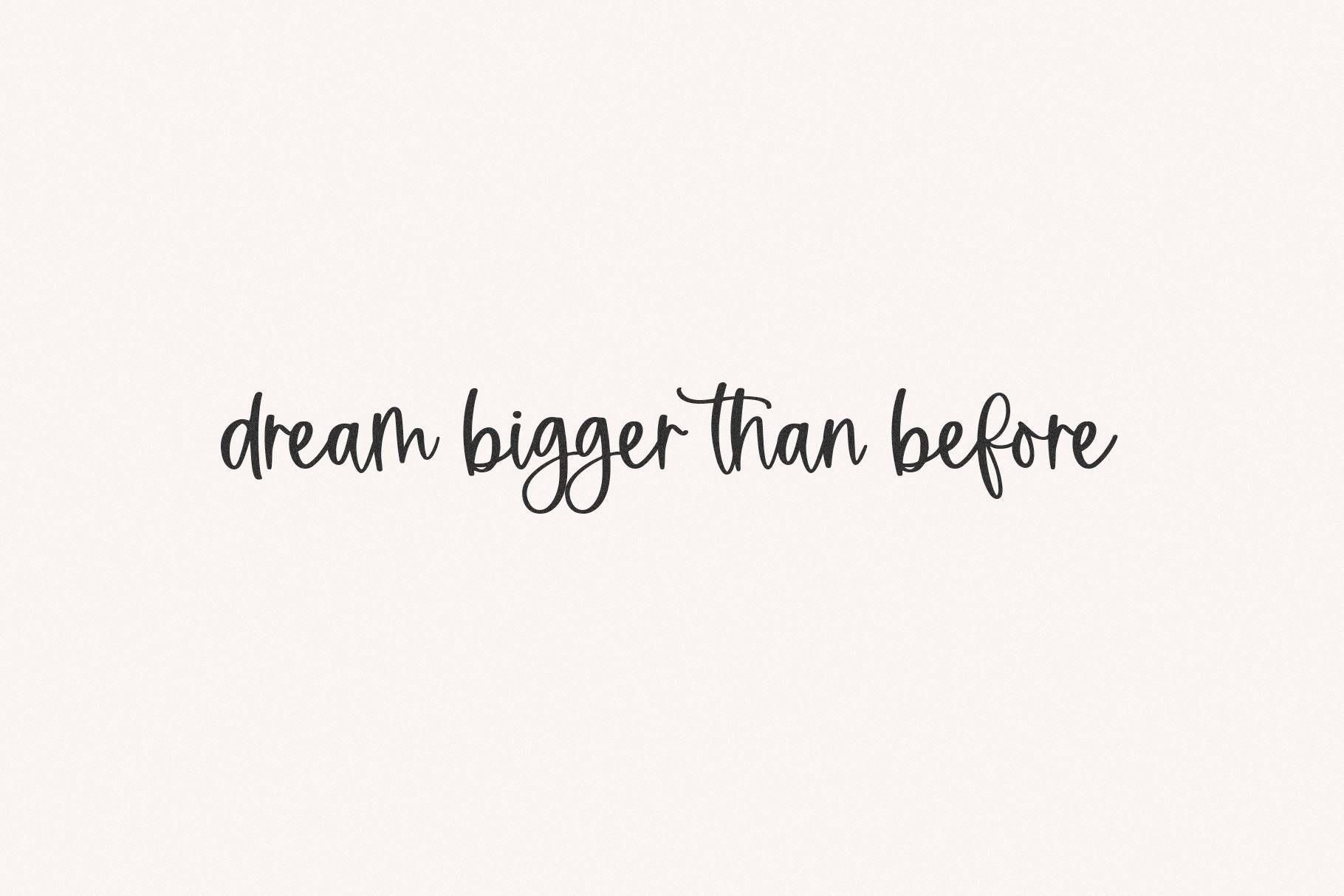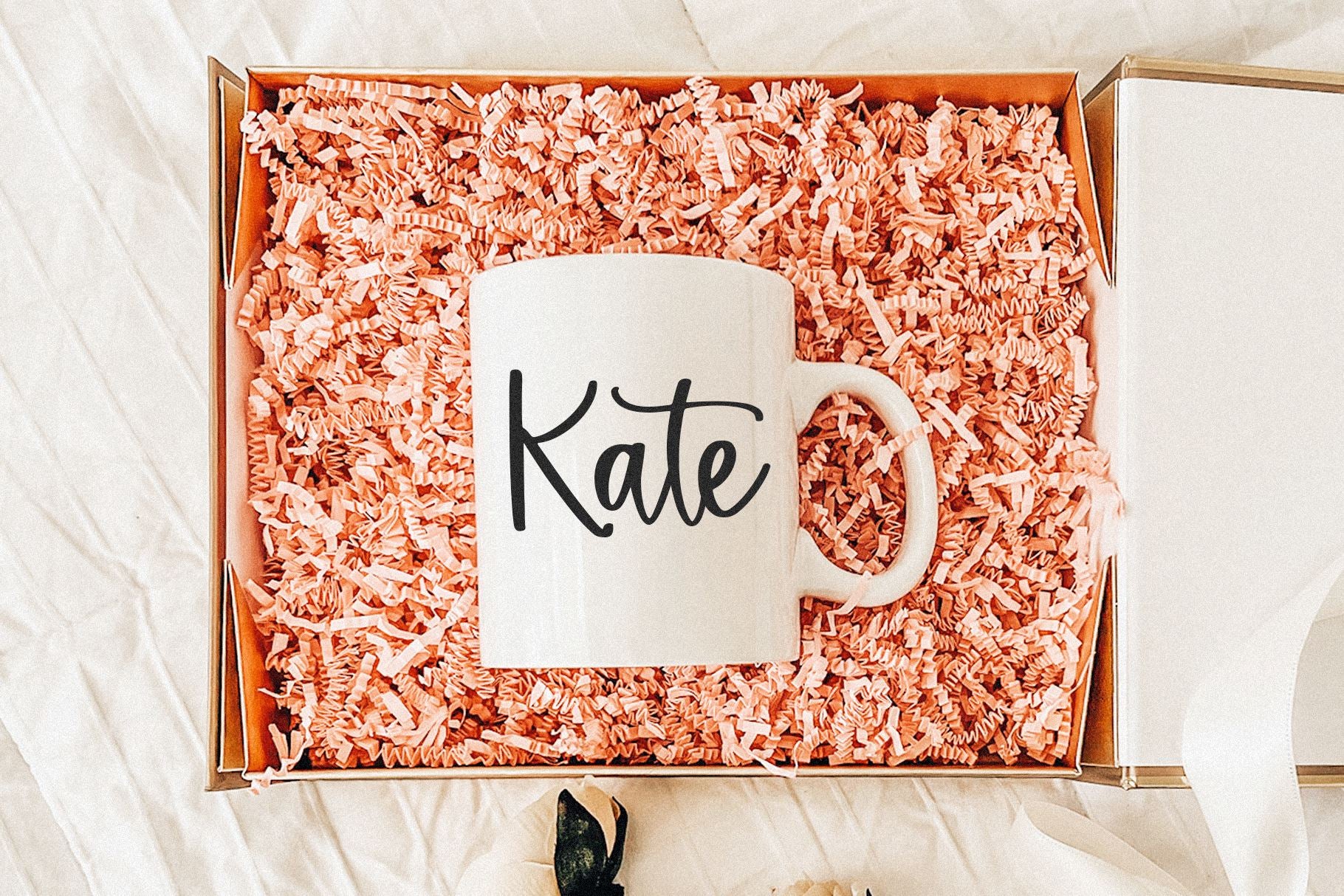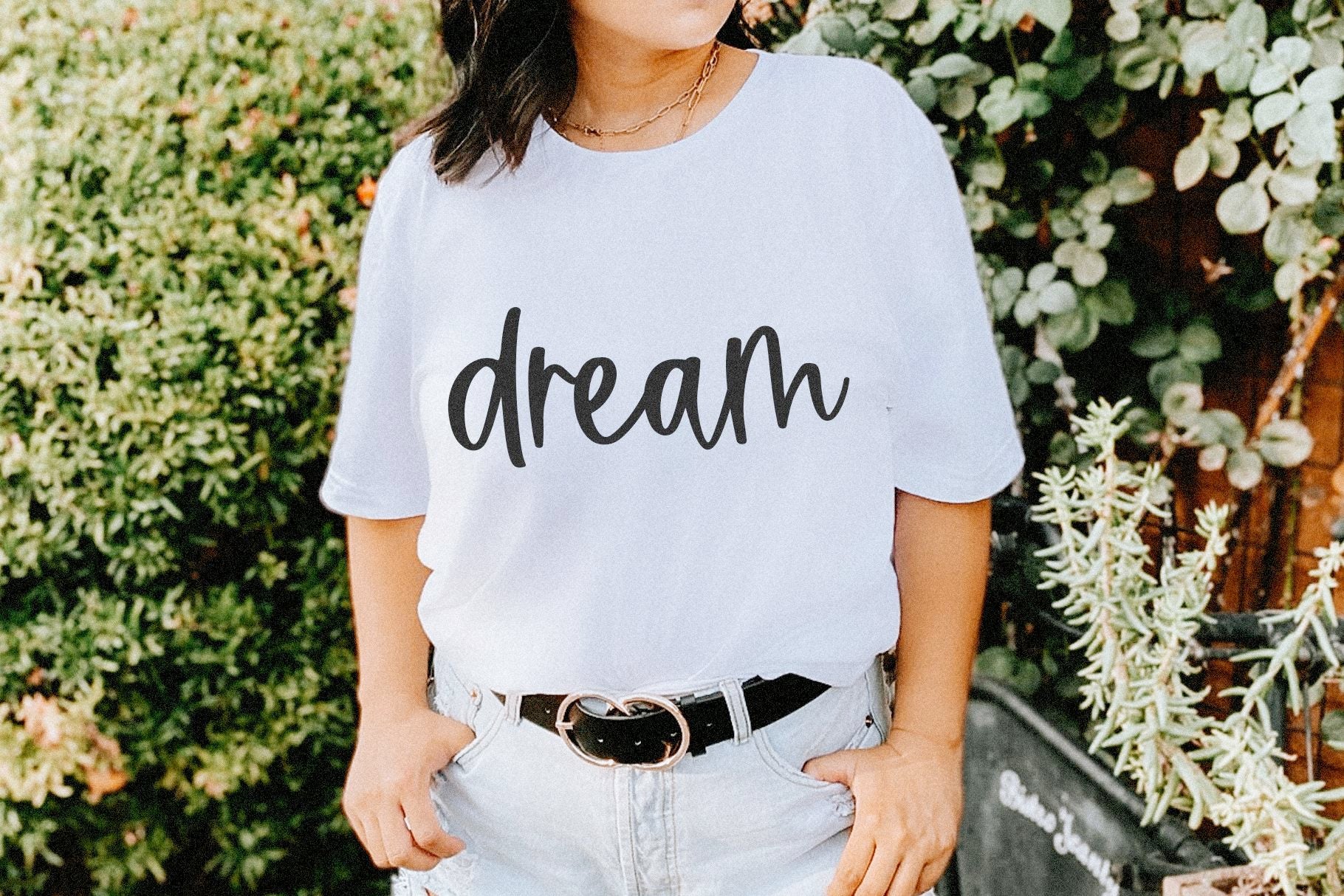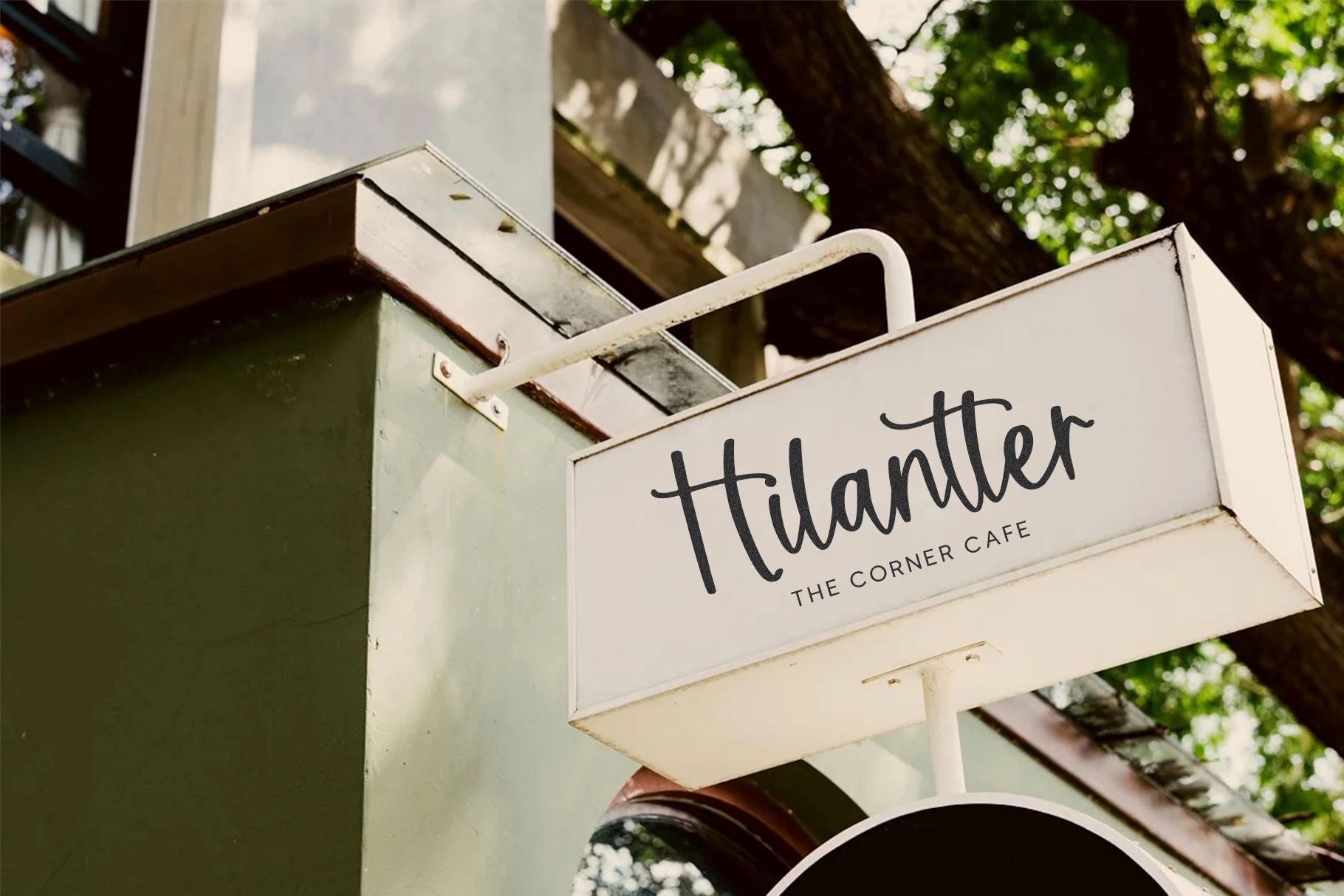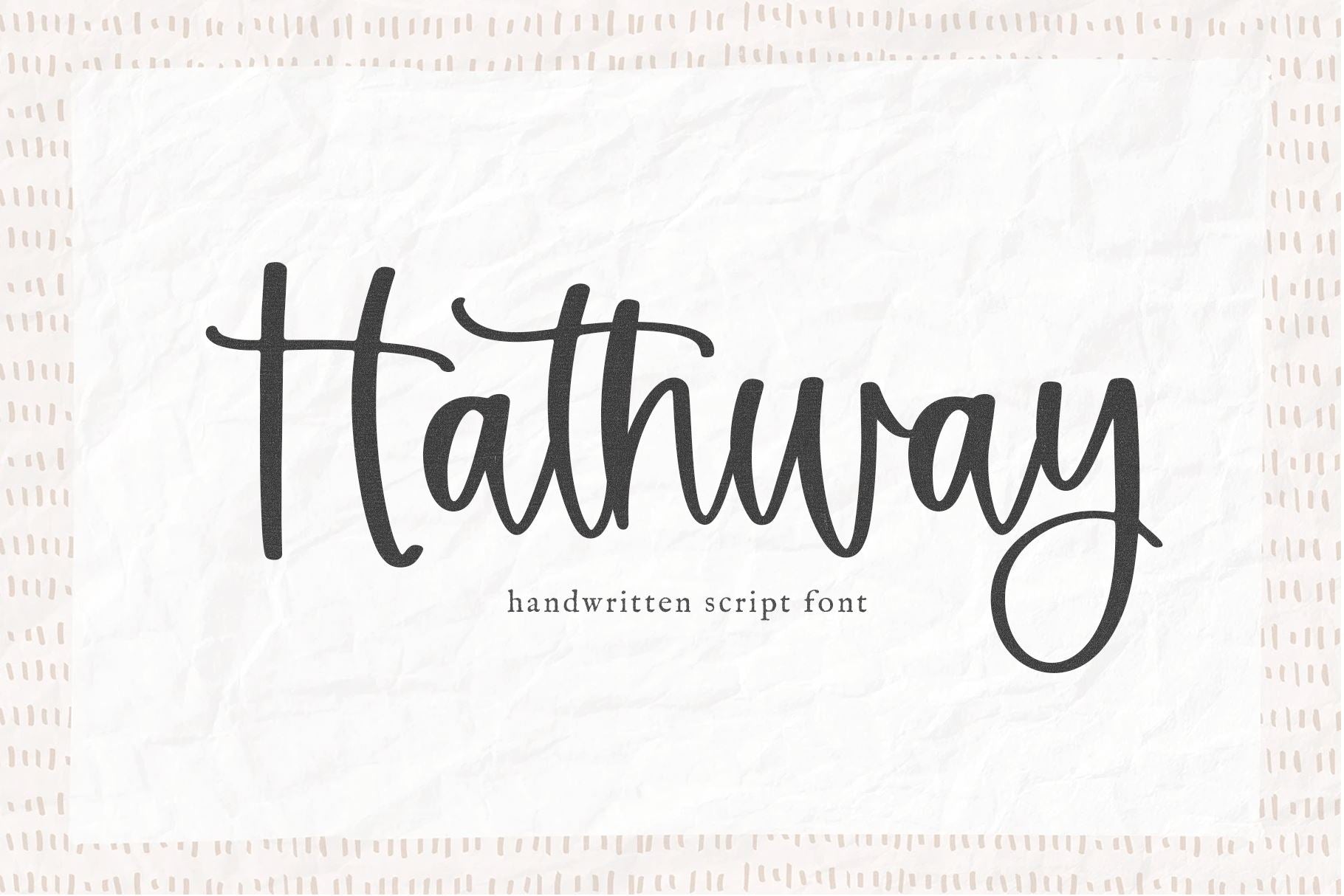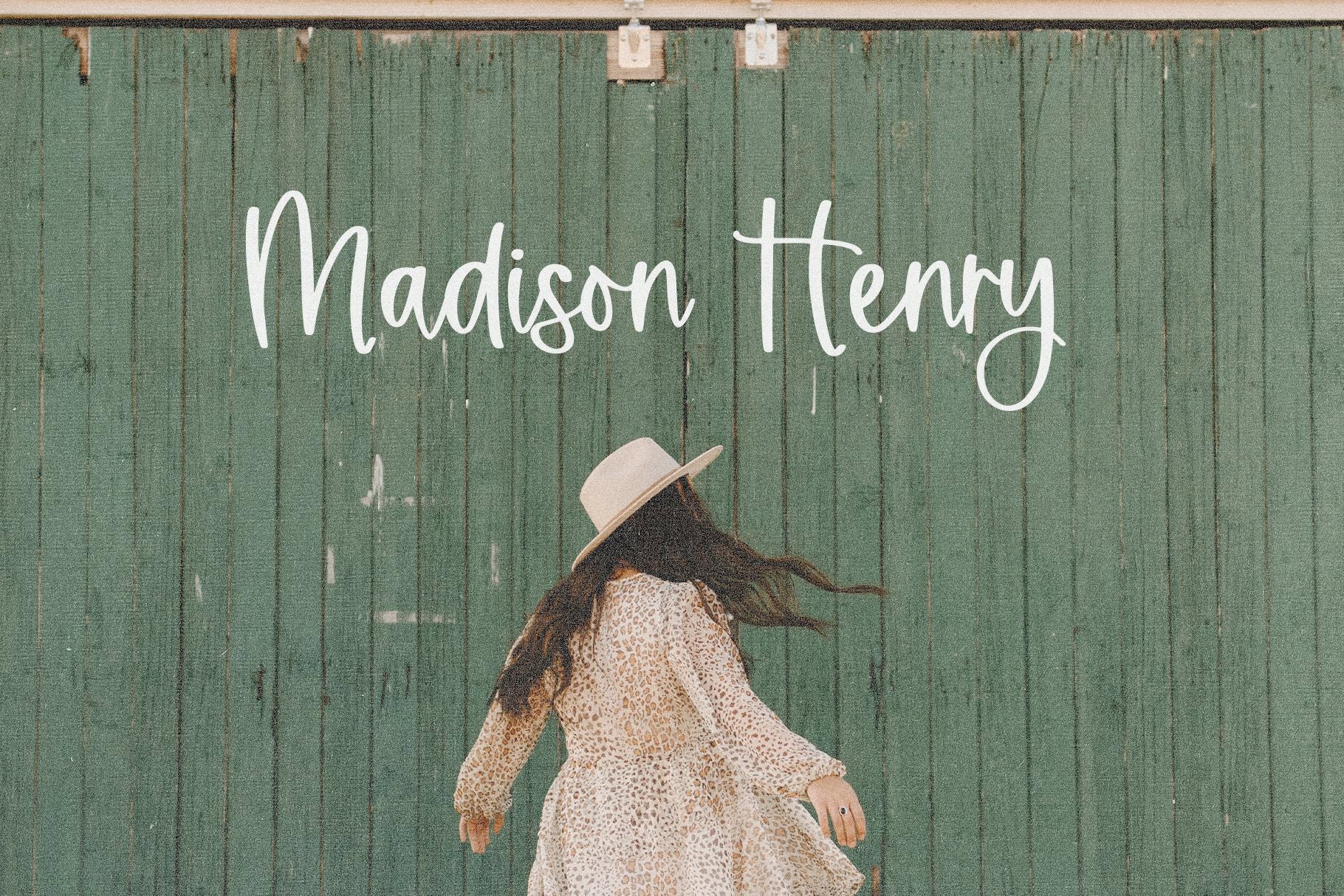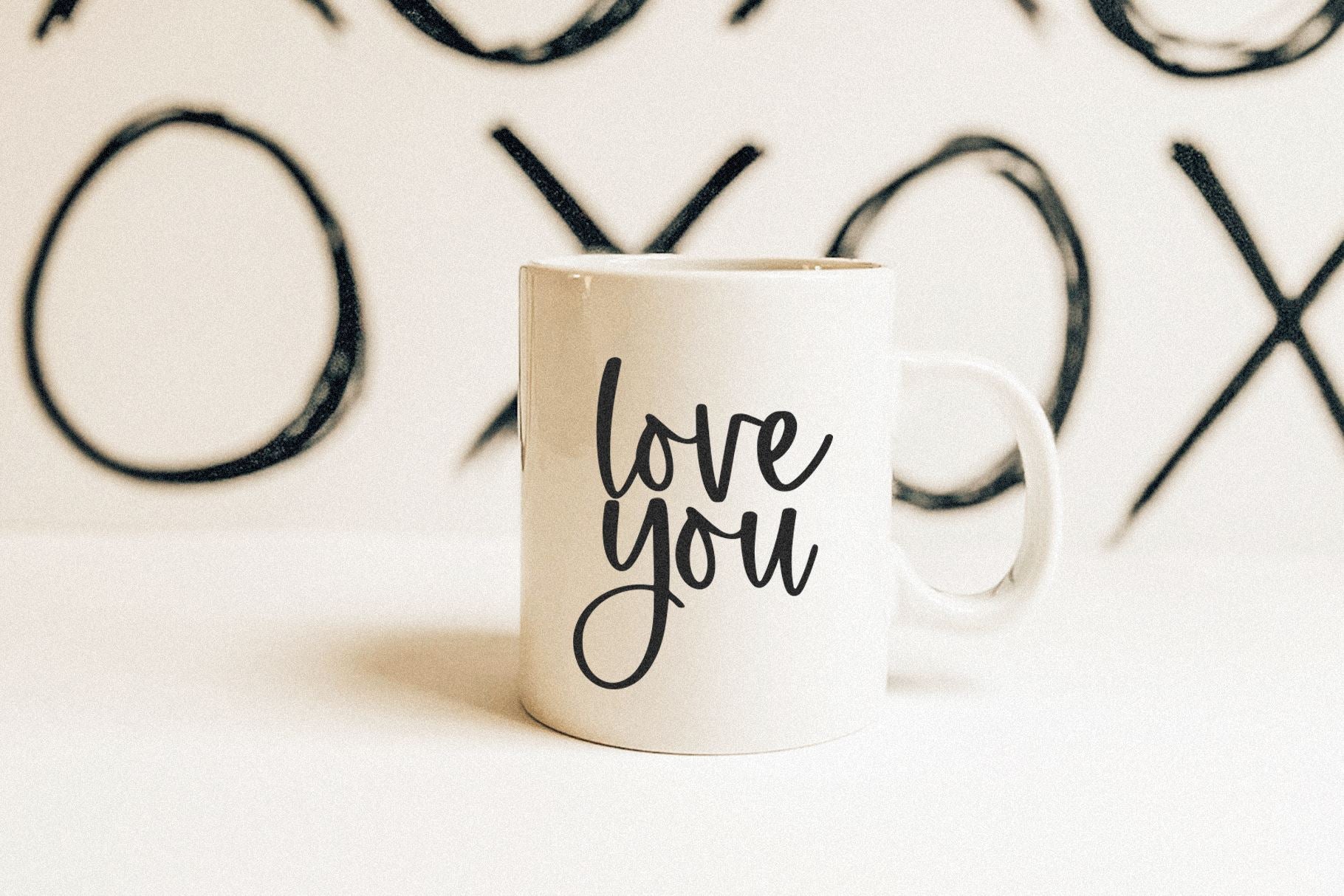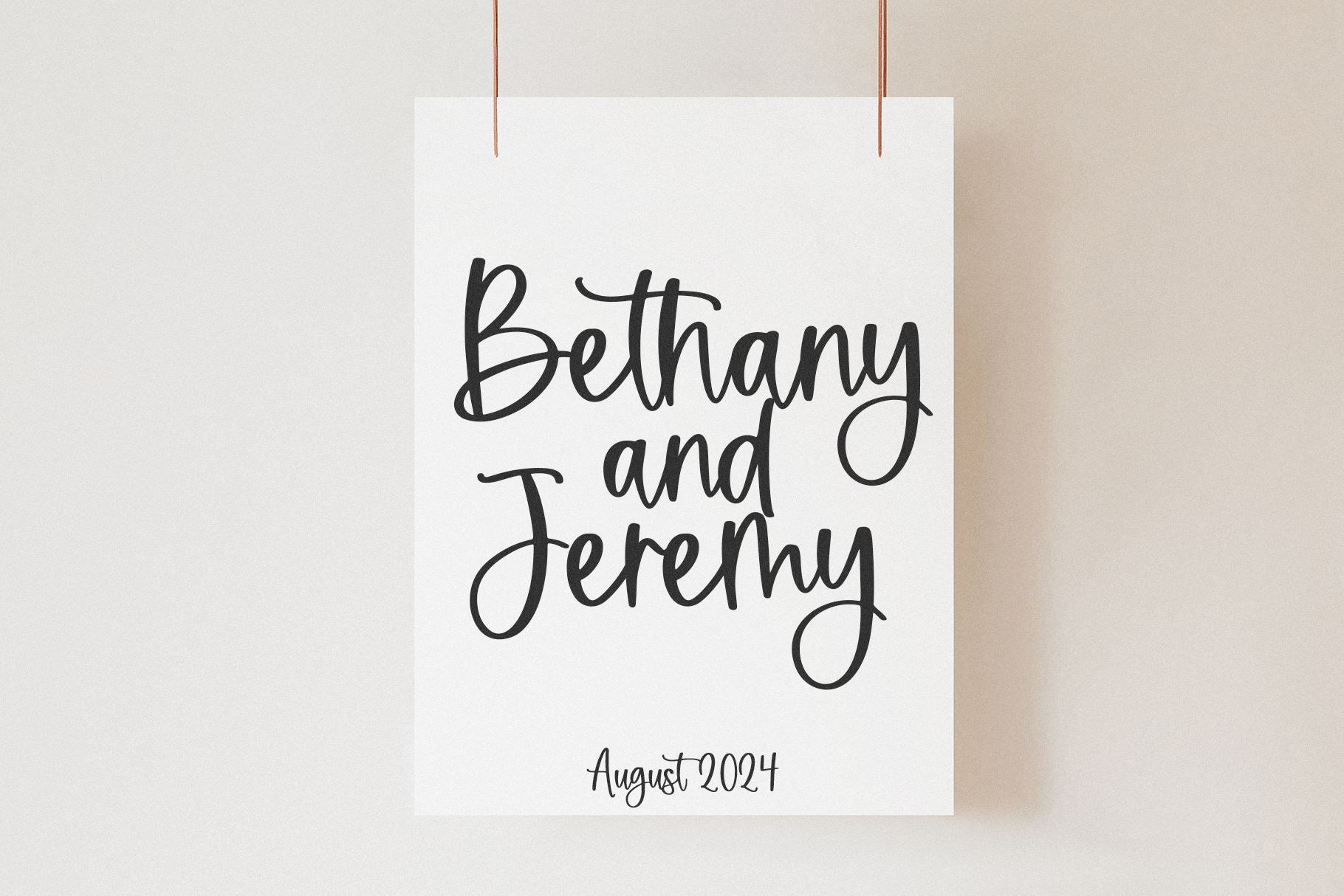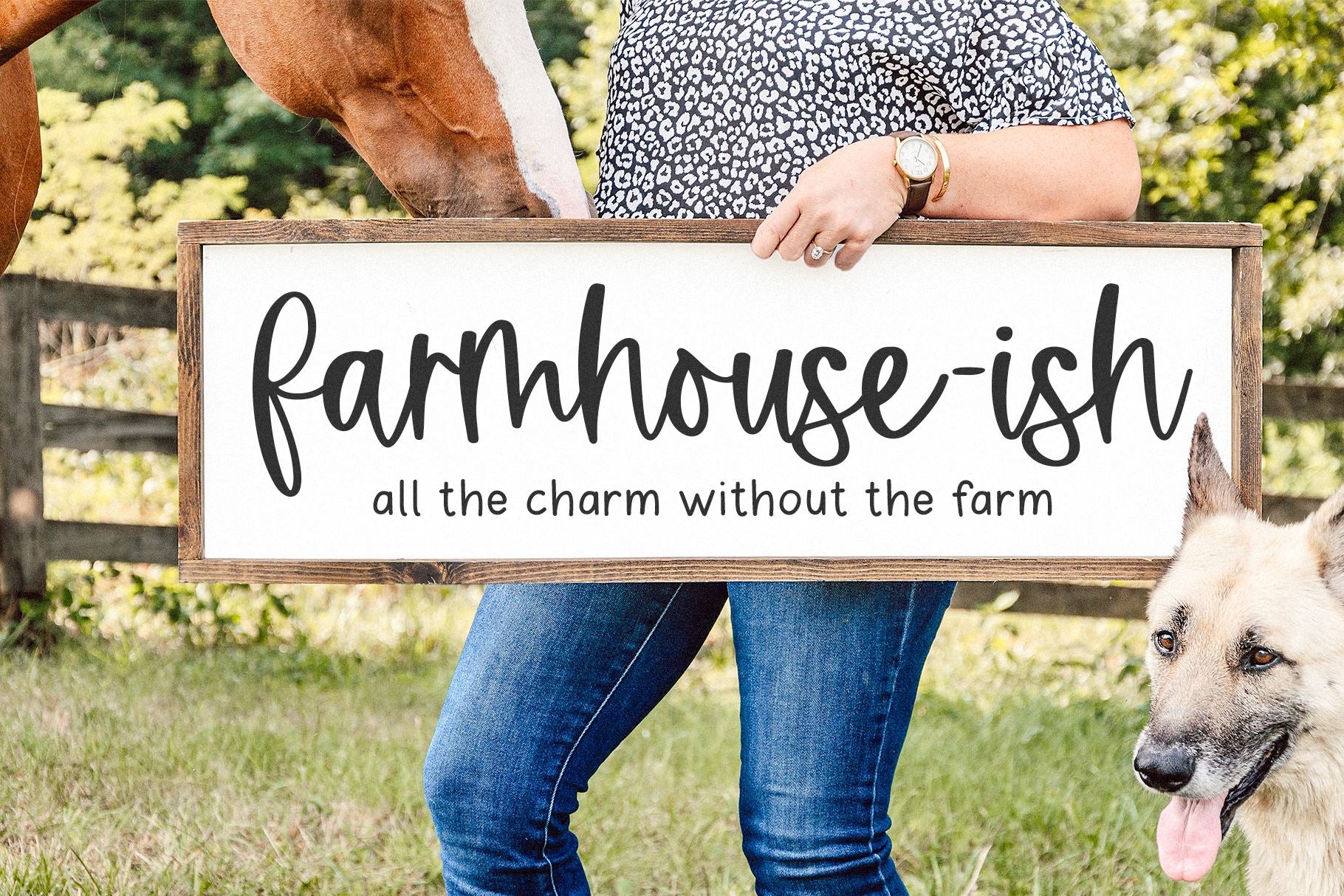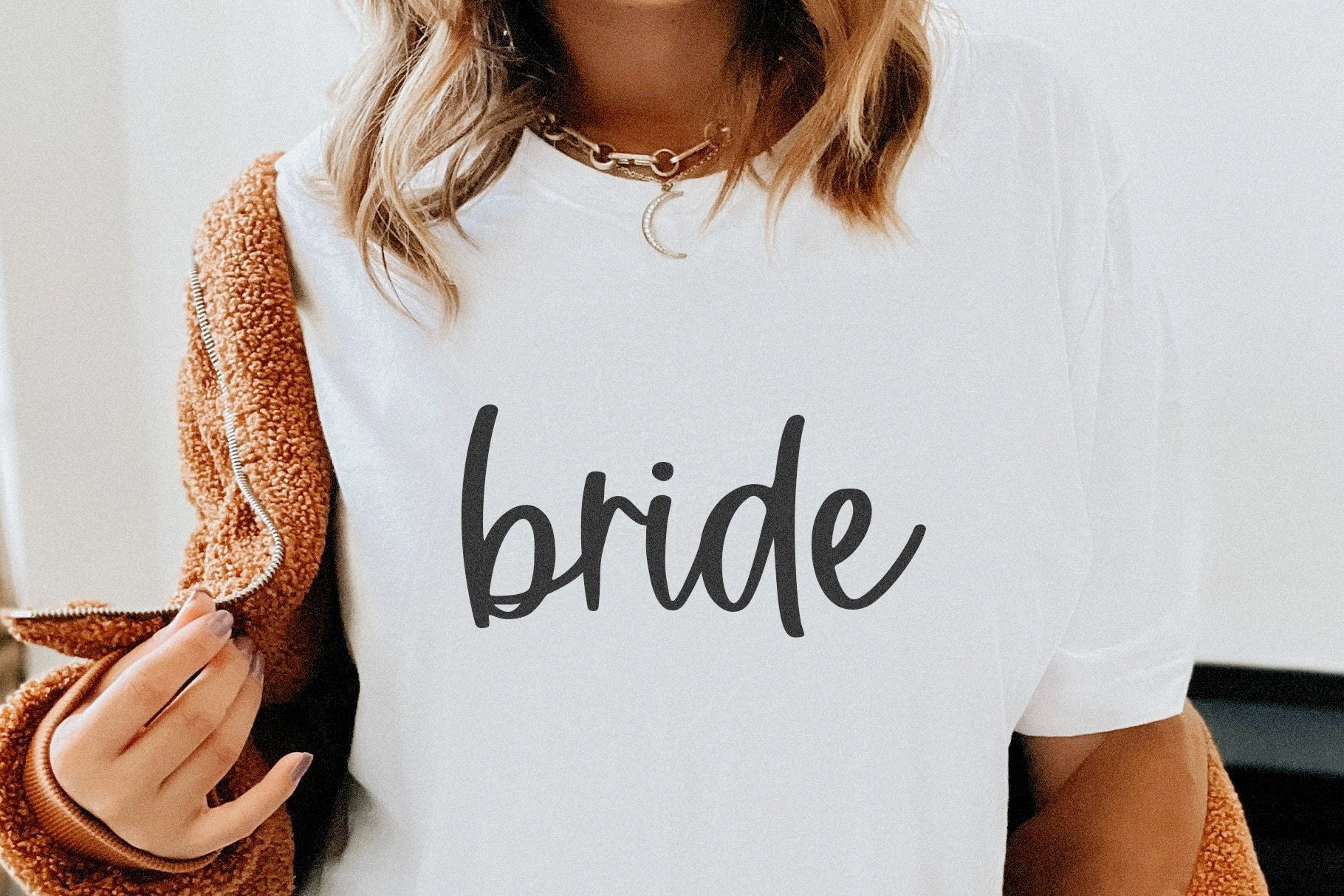
Hathway is a handwritten modern script font. This font is perfect for logos, farmhouse designs, svg files, wedding decor, invitations, branding, crafts and more! Includes OTF/TTF Thank you!